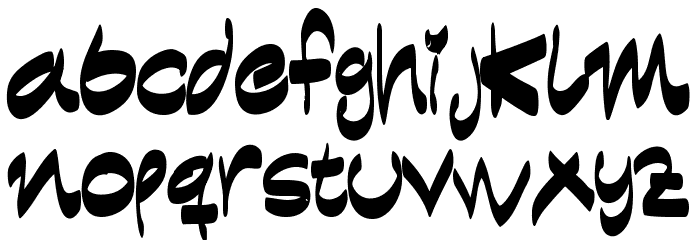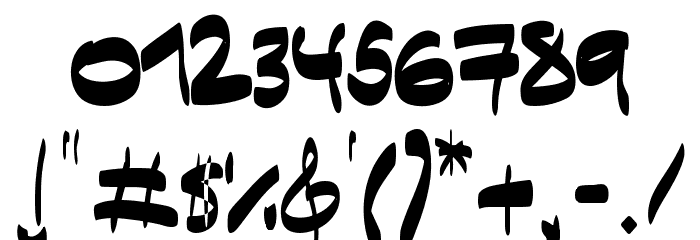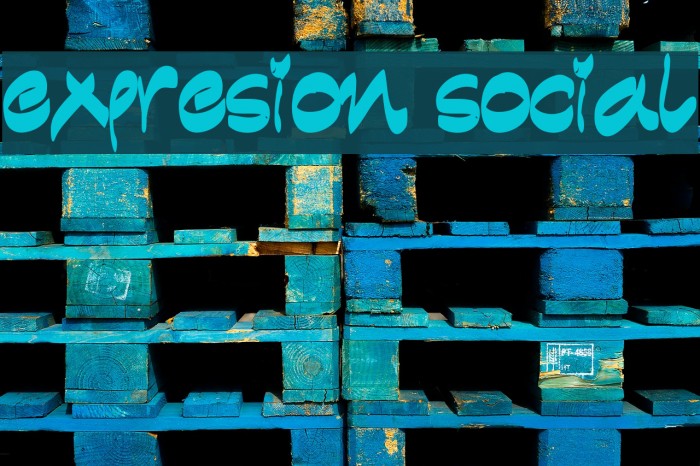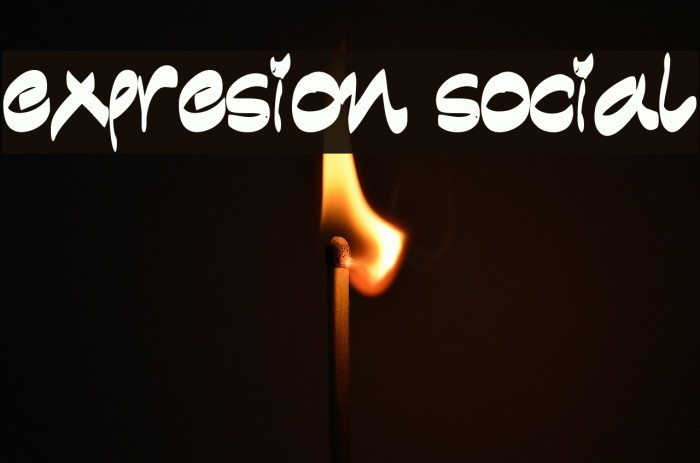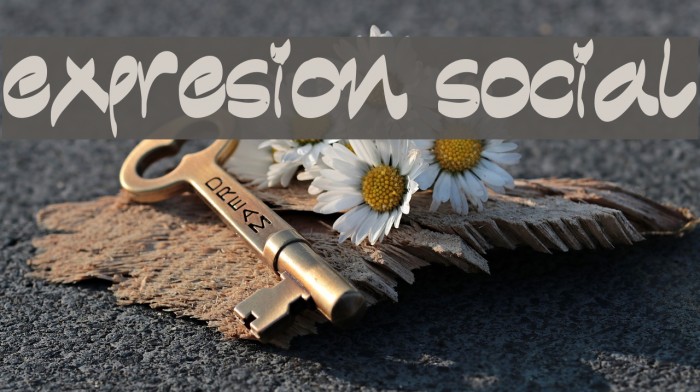
expresion social Font
This font features a bold and expressive style with a handwritten appearance. The characters are thick and have a playful, dynamic flow, giving them a lively and energetic feel. The strokes are uneven, adding to the casual and informal look. The uppercase and lowercase letters maintain a consistent style, with exaggerated curves and loops that enhance the font's unique personality. Numbers and special characters follow the same expressive design, making them stand out. This font is ideal for projects that require a personal touch or a creative, artistic vibe.
A bold, expressive handwritten font with dynamic, playful strokes.
- Proposed Projects: Ideal for creative projects such as posters, invitations, branding, and social media graphics where a personal and artistic touch is desired.